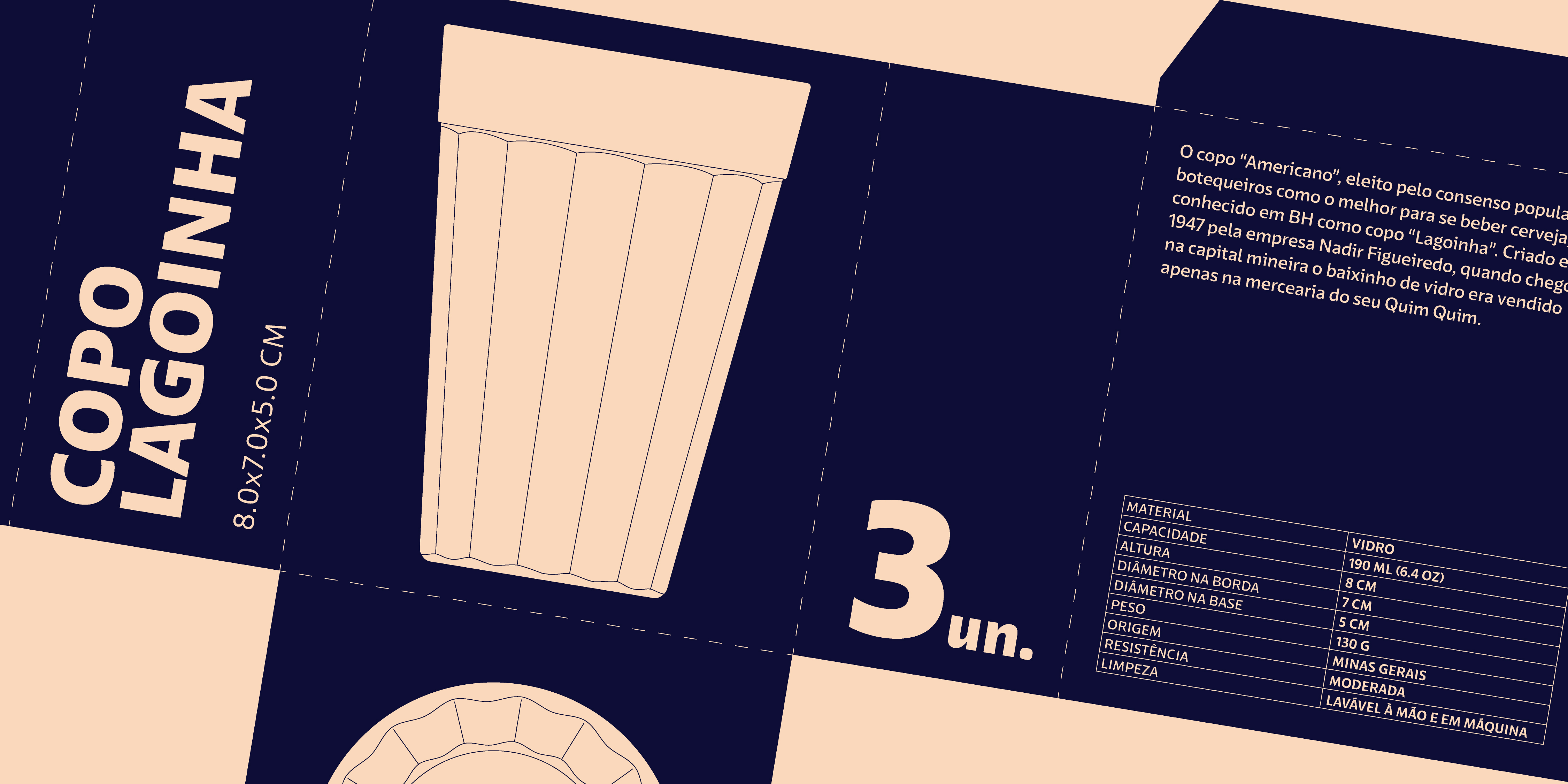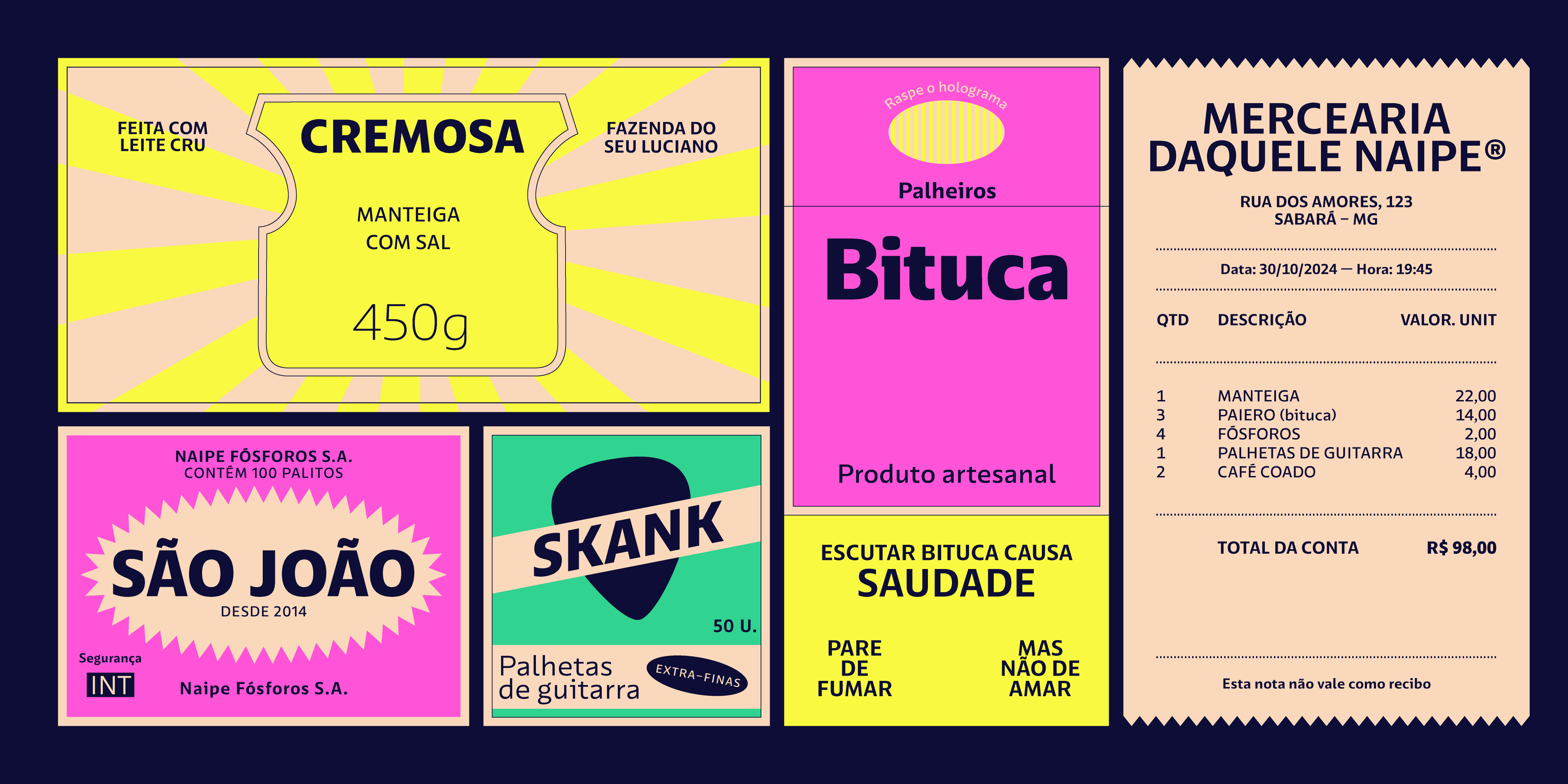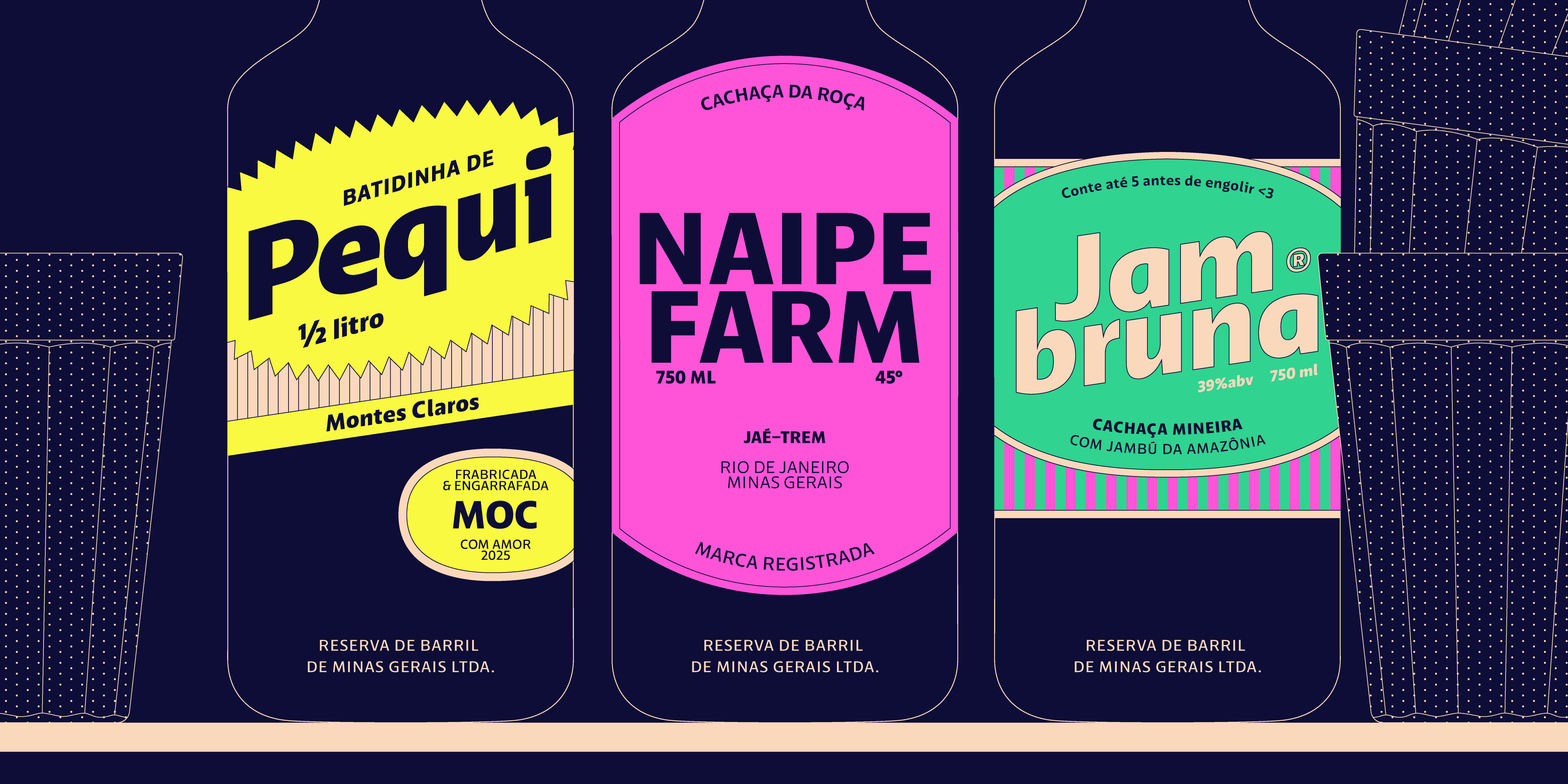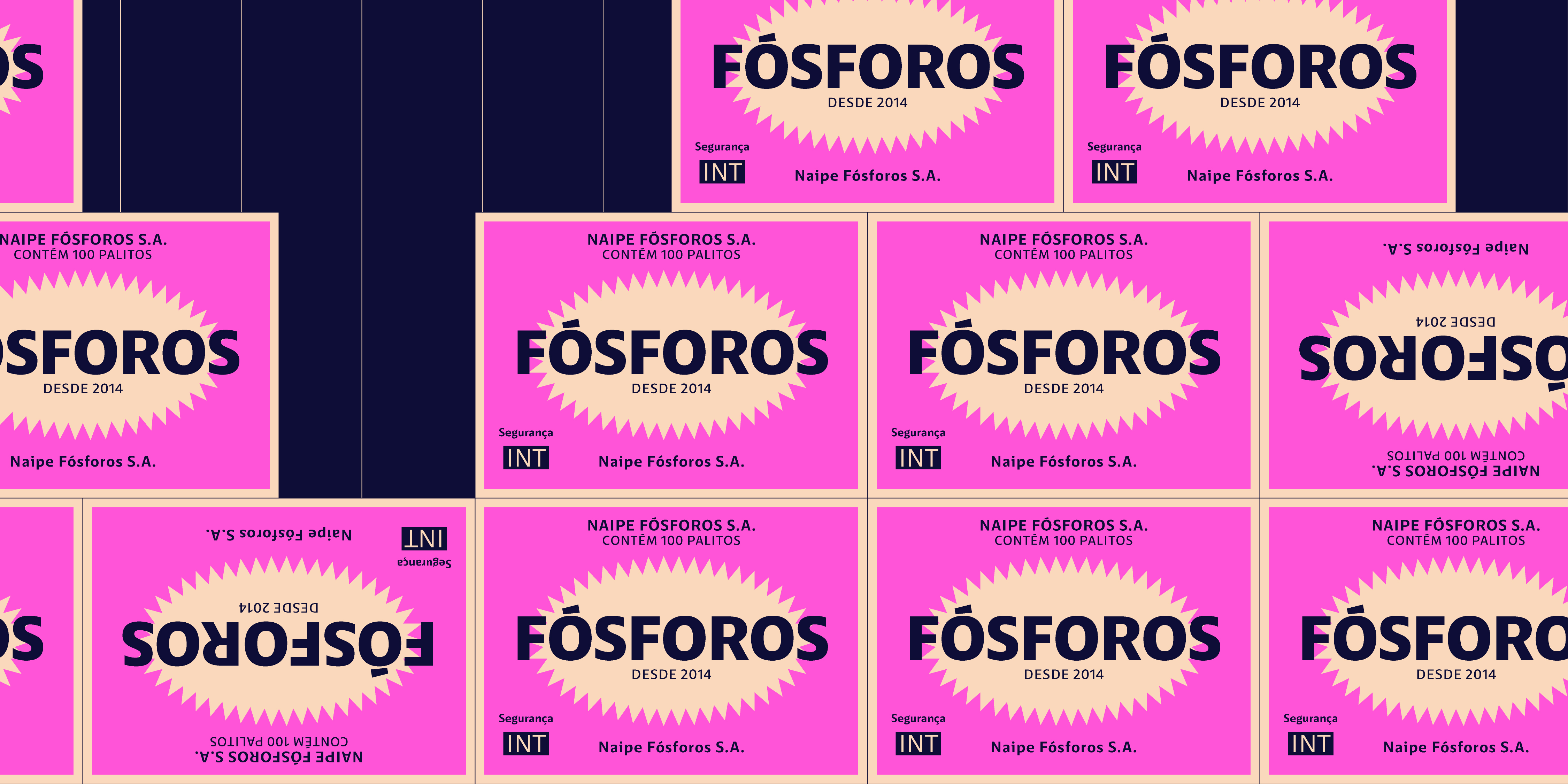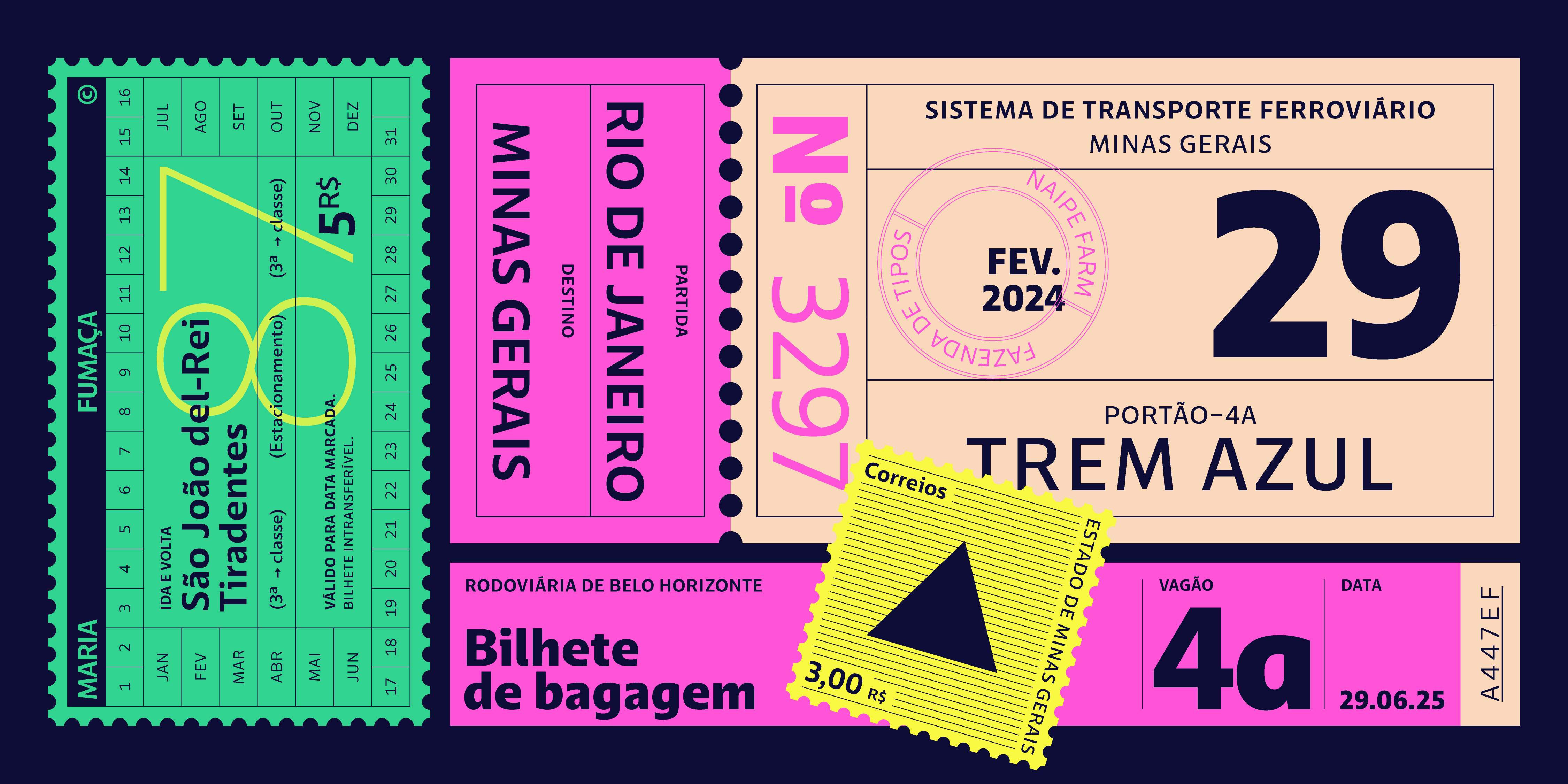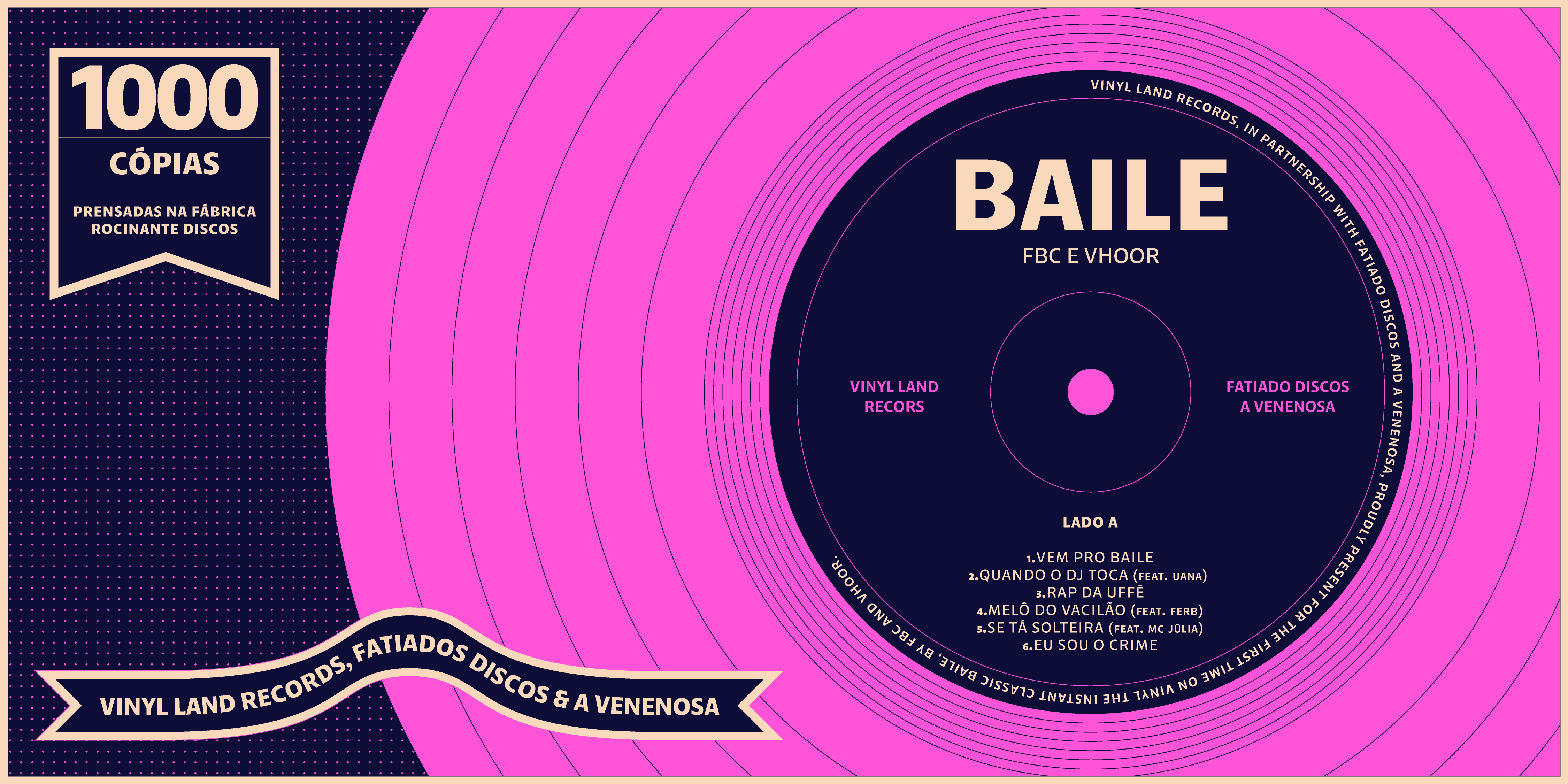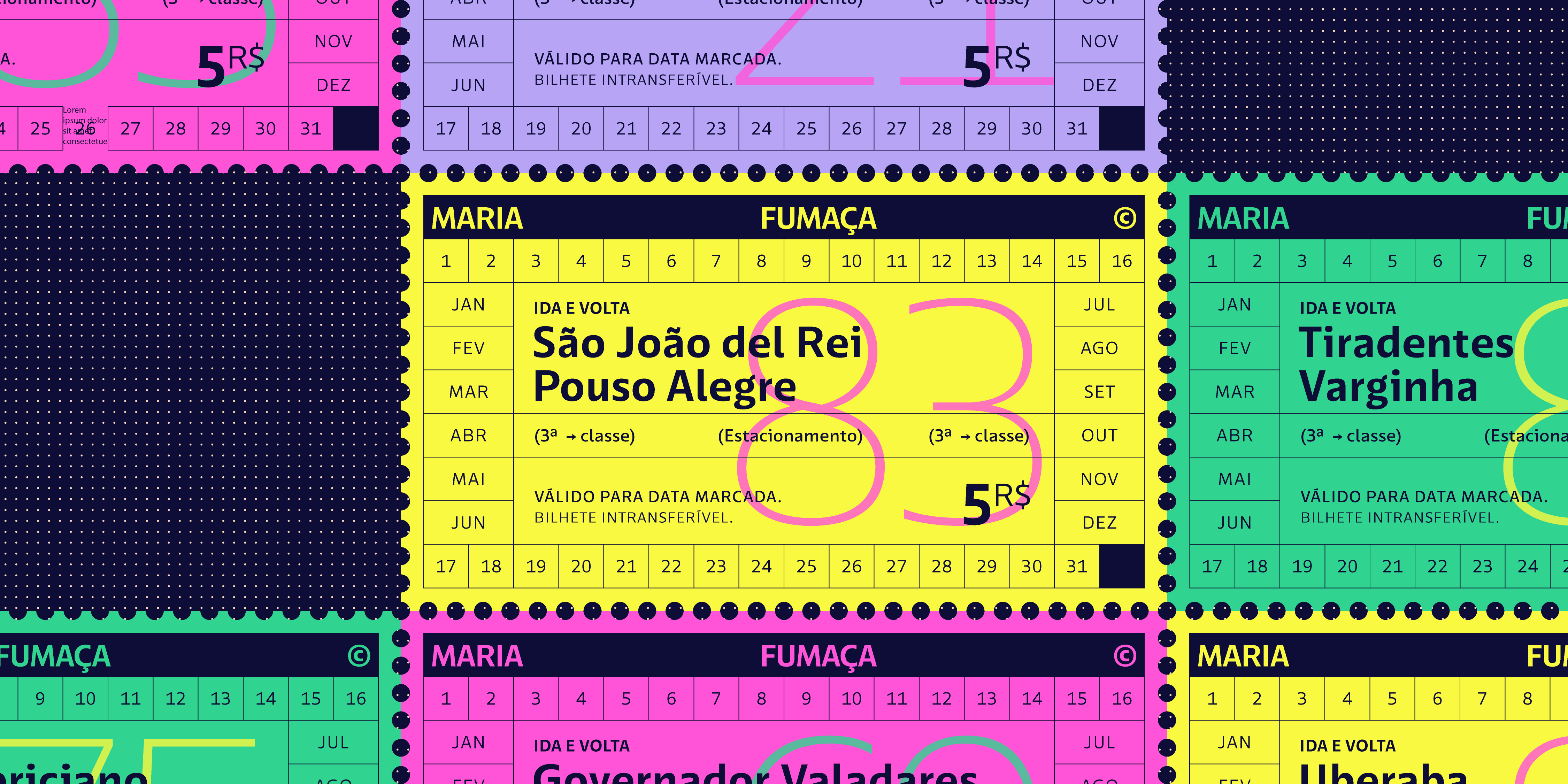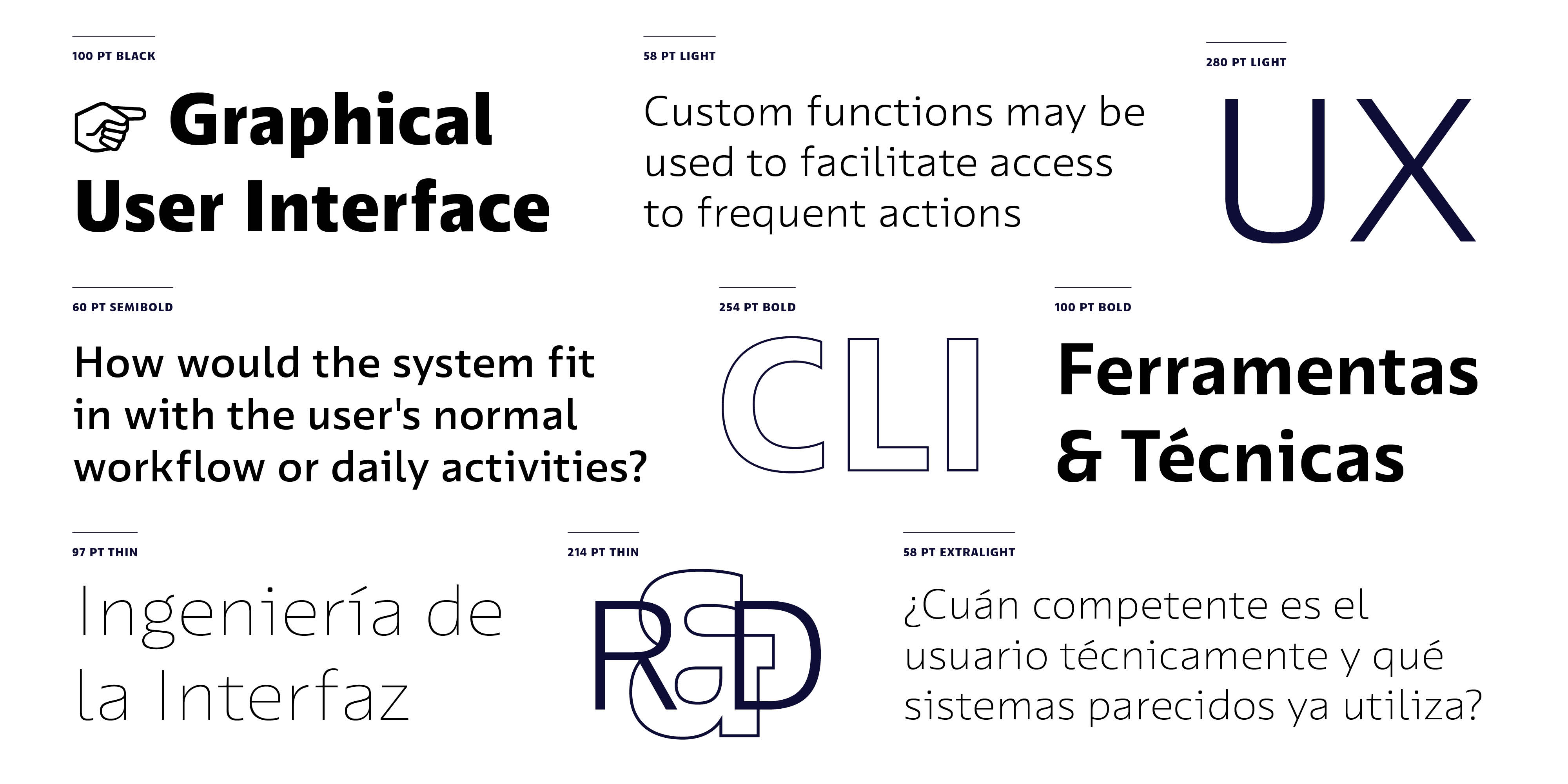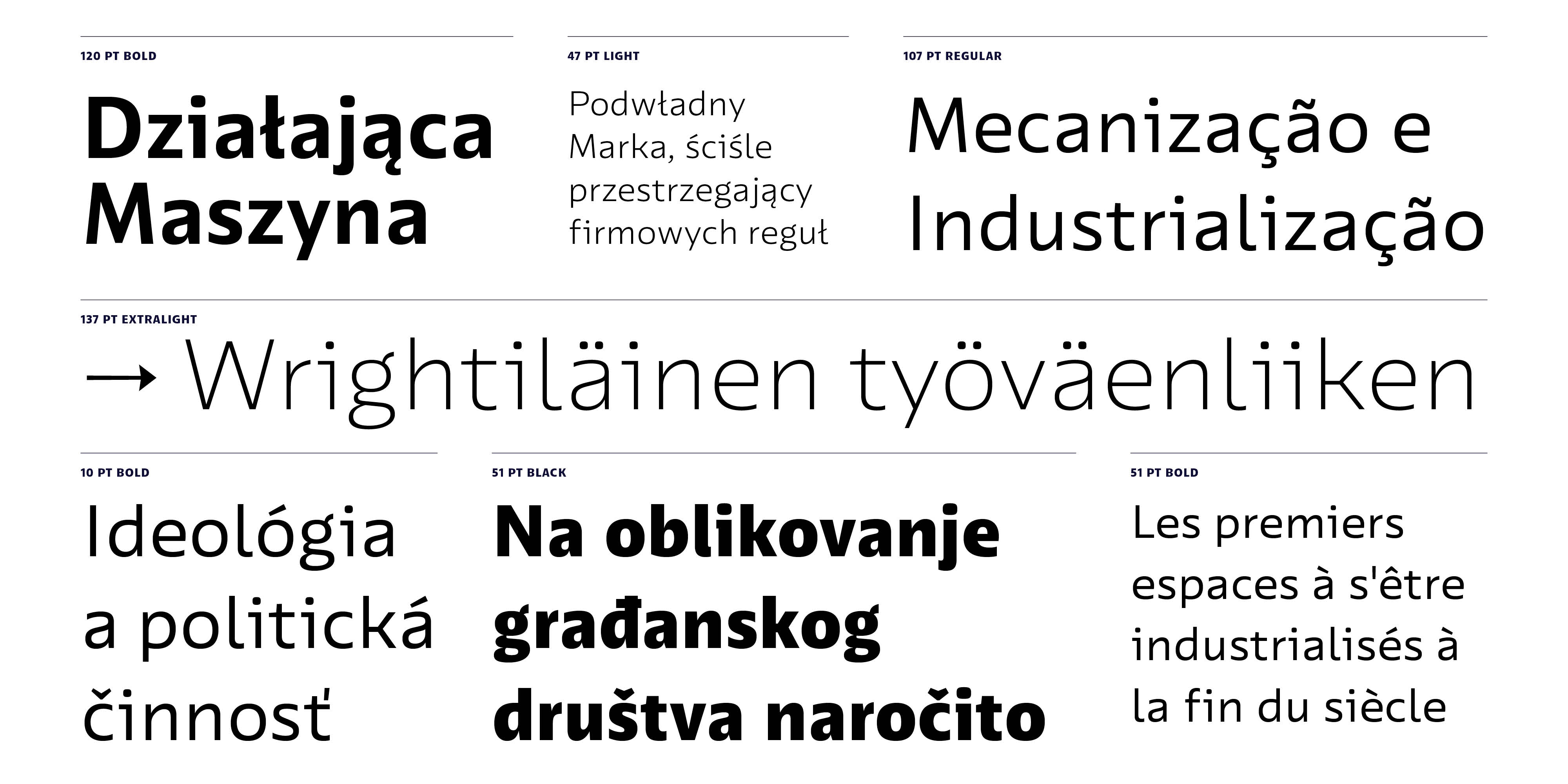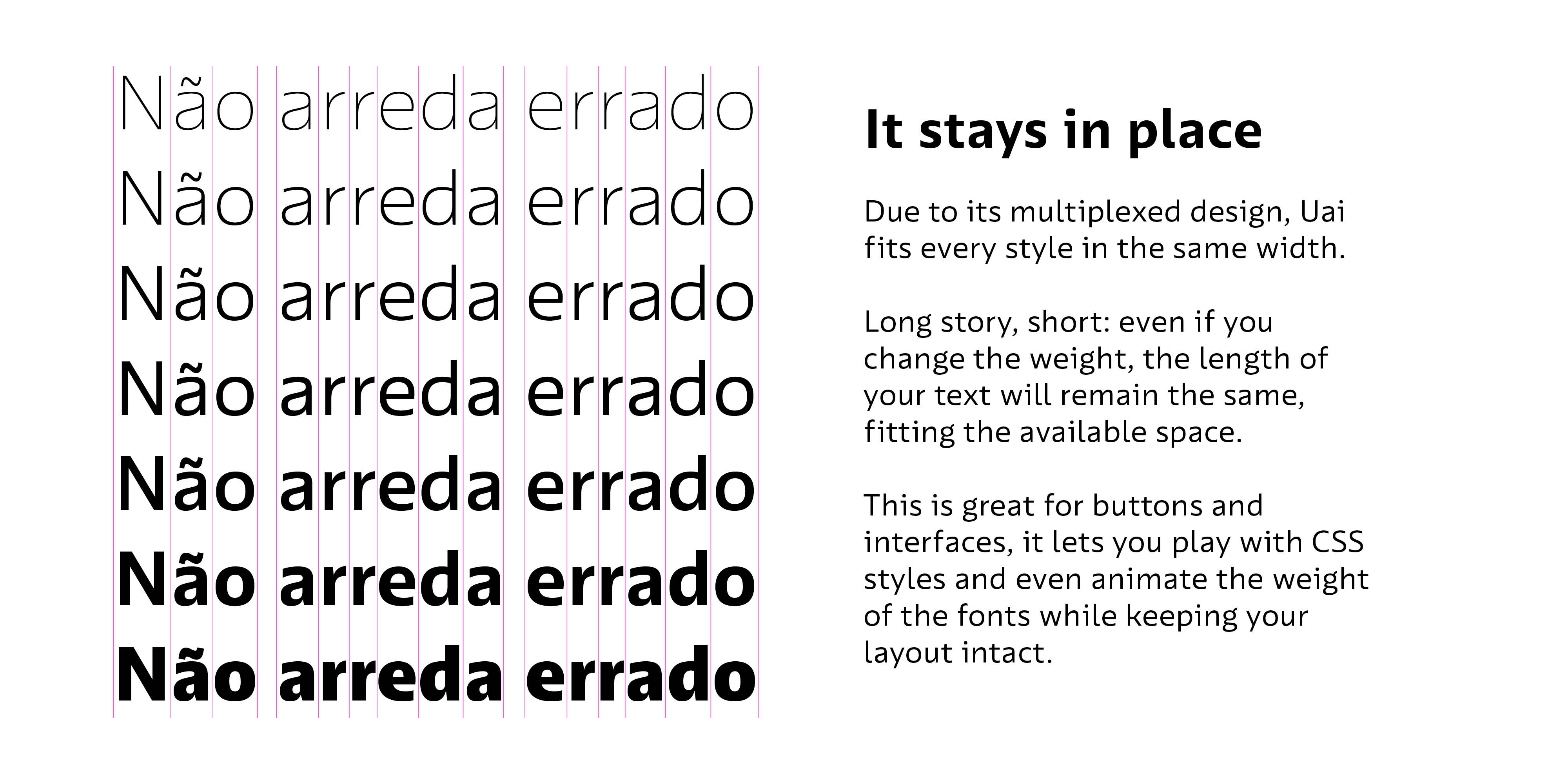
Uai UI Collection
Uai
Aa Aa Aa AaUai is a sans serif designed to meet the high standards of modern user-interface design, infused with the taste and beauty of Minas Gerais.
This 14-style, fully variable family is highly legible and adaptable, solving complex design challenges without losing its charm.
Just like the people of Minas, it always finds a way to do things its own way—quietly confident, effortlessly effective.